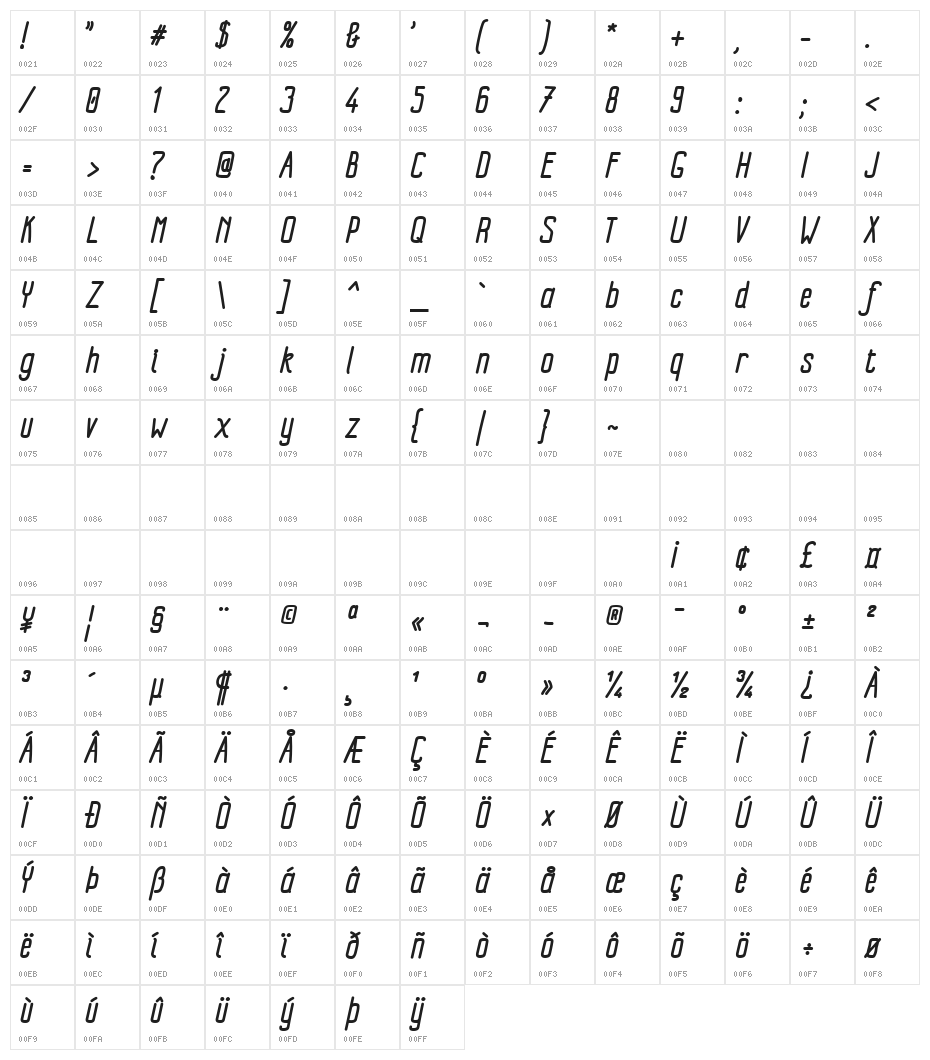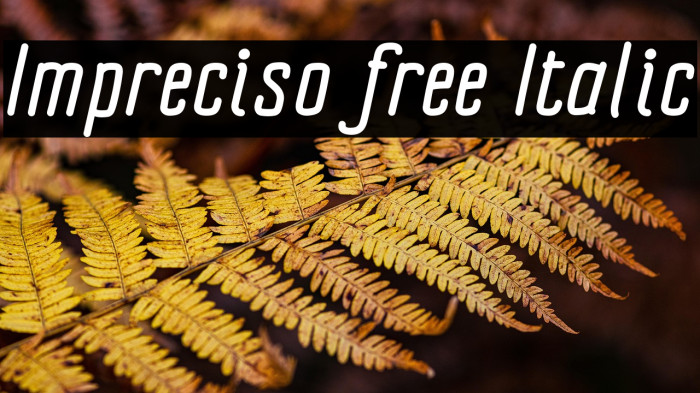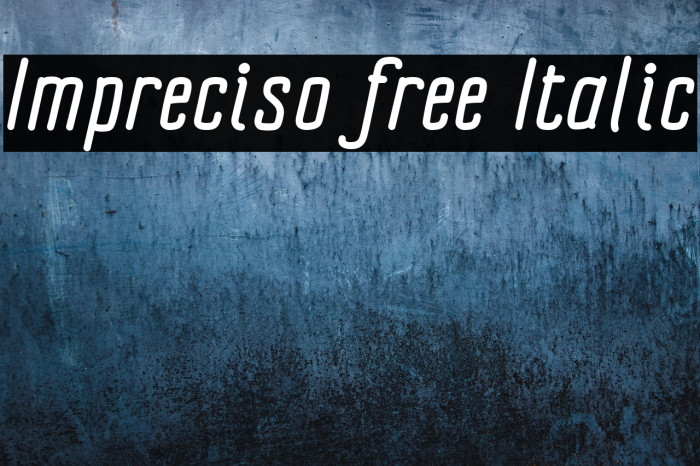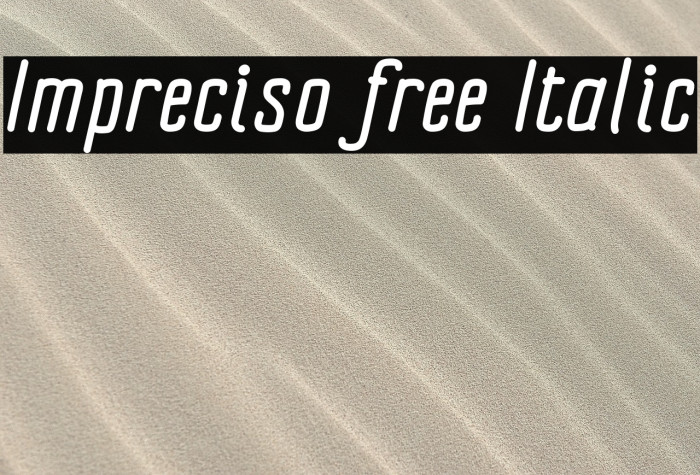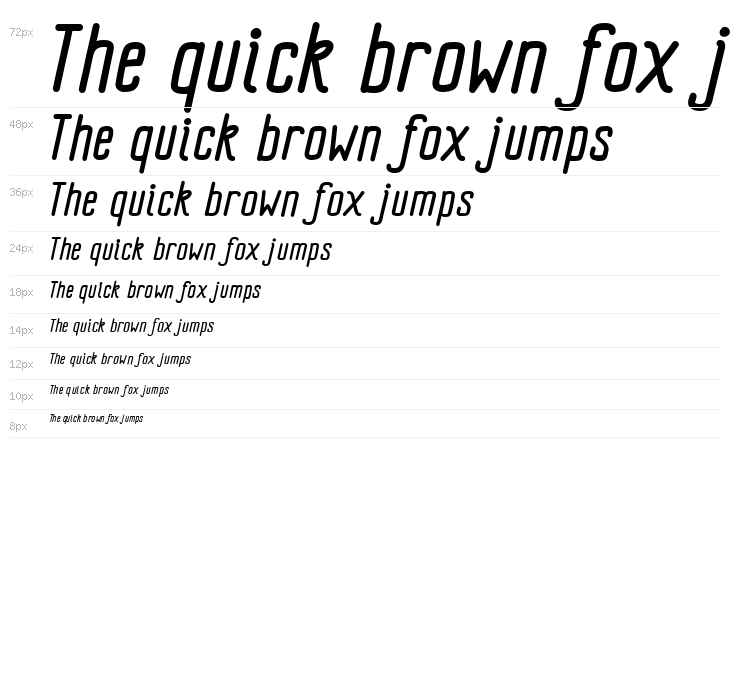
Impreciso free Italic Font
Impreciso free Italic Description
This font features a dynamic and energetic style with a slight slant, giving it an italicized appearance. The characters are elongated and have a playful, handwritten quality, making it suitable for projects that require a personal touch. The uppercase and lowercase letters maintain a consistent flow, while the numbers and special characters integrate seamlessly into the overall design. The font's strokes are uniform in thickness, providing a clean and modern look. Its unique style makes it stand out, yet it remains legible and versatile for various applications.
| Proposed Projects | Ideal for branding, posters, invitations, and creative projects that require a personal touch. |